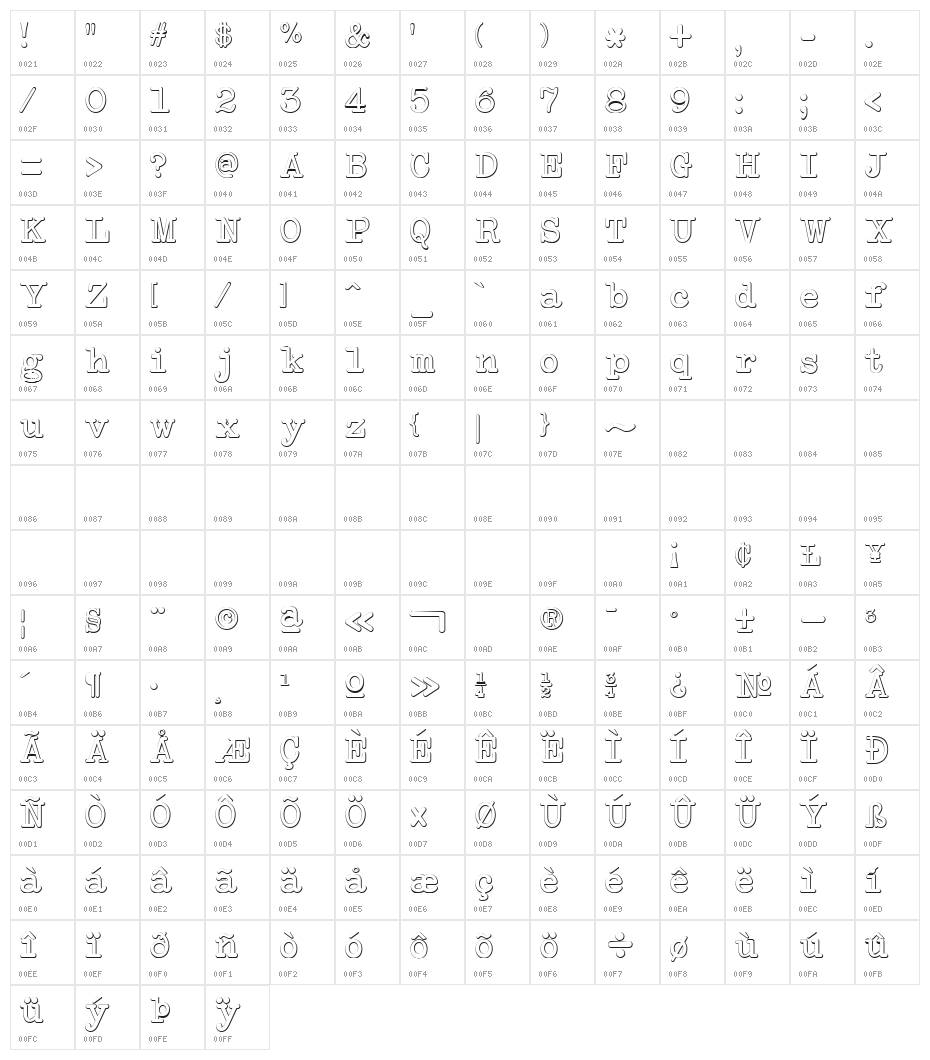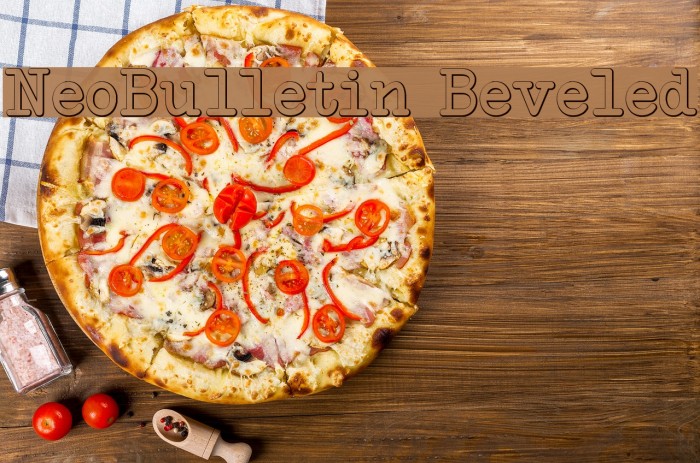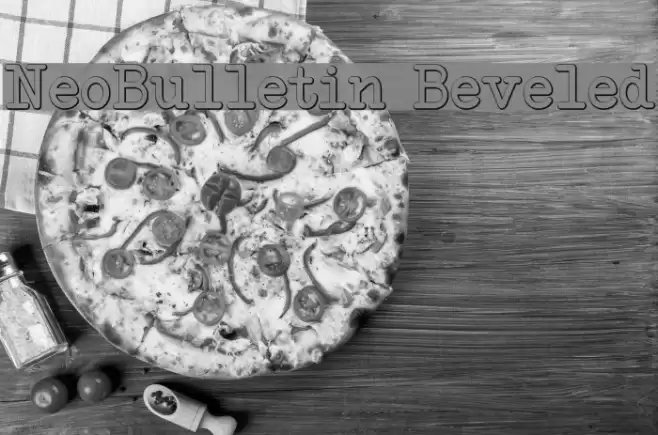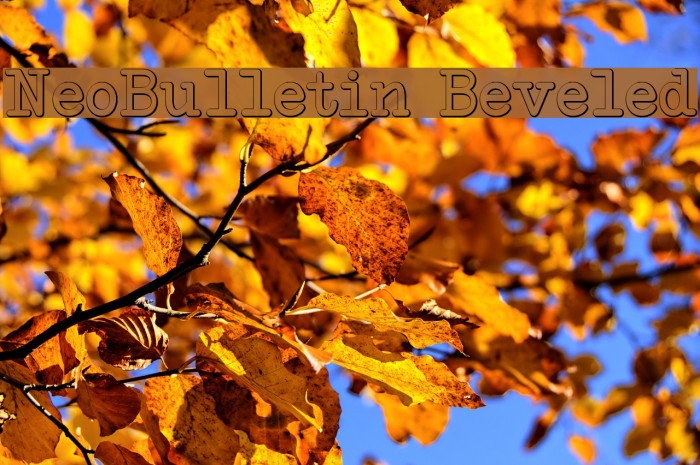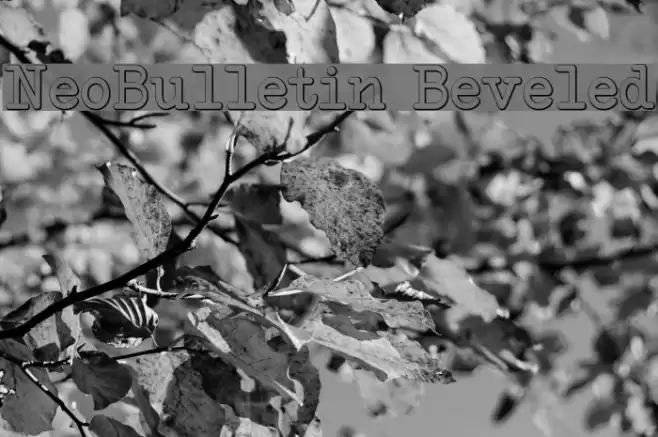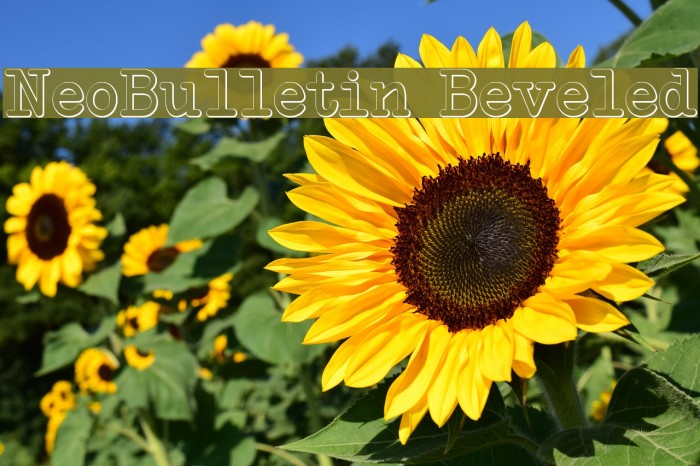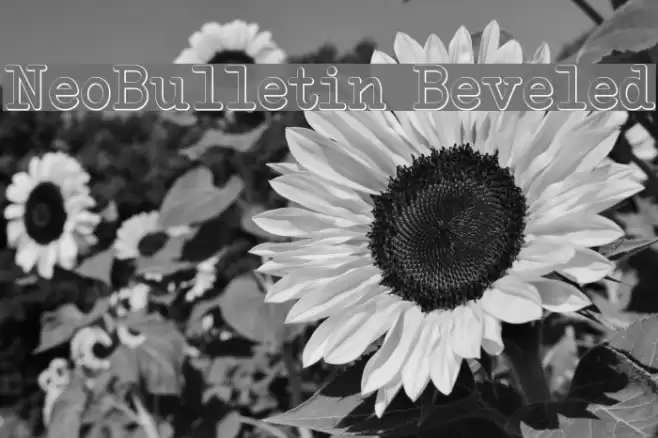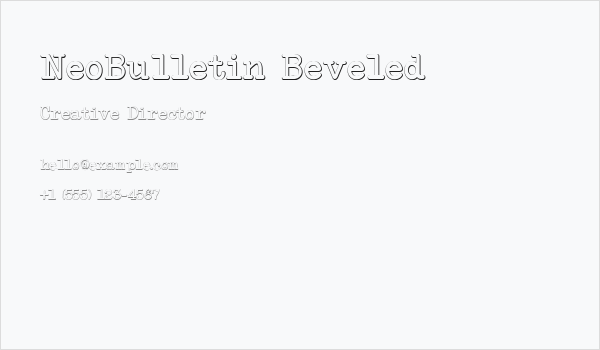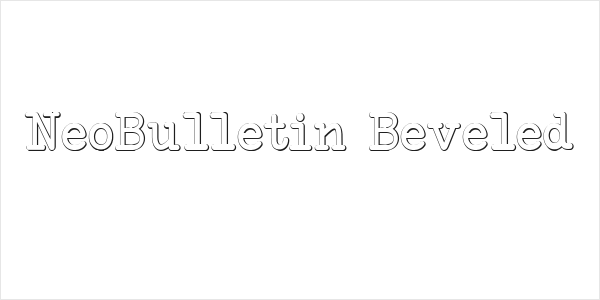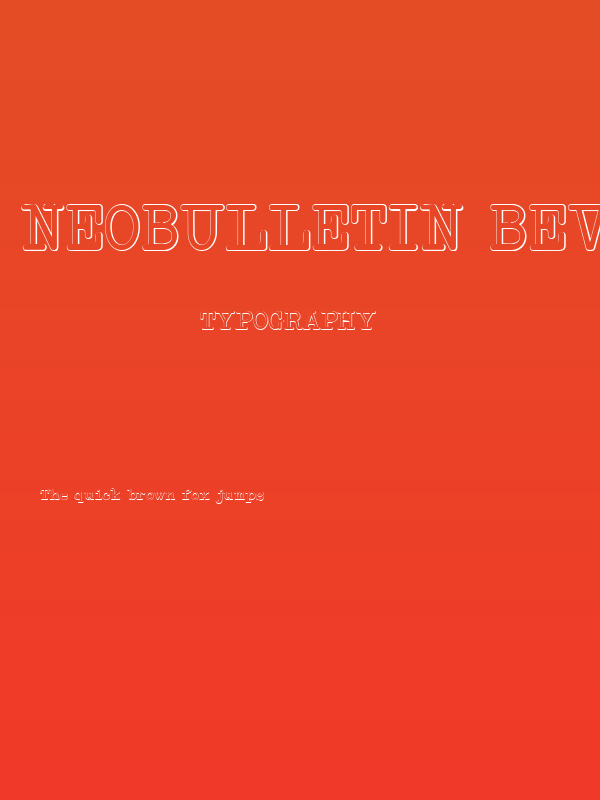
NeoBulletin Beveled Font
NeoBulletin Beveled Description
This font features a bold, beveled design that combines a classic serif structure with a modern twist. The letters are outlined, creating a three-dimensional effect that adds depth and visual interest. The uppercase and lowercase characters maintain a consistent style, with the serifs providing a touch of elegance. The numerals are equally bold and clear, making them stand out effectively. Special characters are designed with the same attention to detail, ensuring they integrate seamlessly with the rest of the font. This font's unique beveled style makes it ideal for projects that require a strong visual impact.
| Proposed Projects | Ideal for headlines, posters, branding, and any design needing a strong visual impact. |